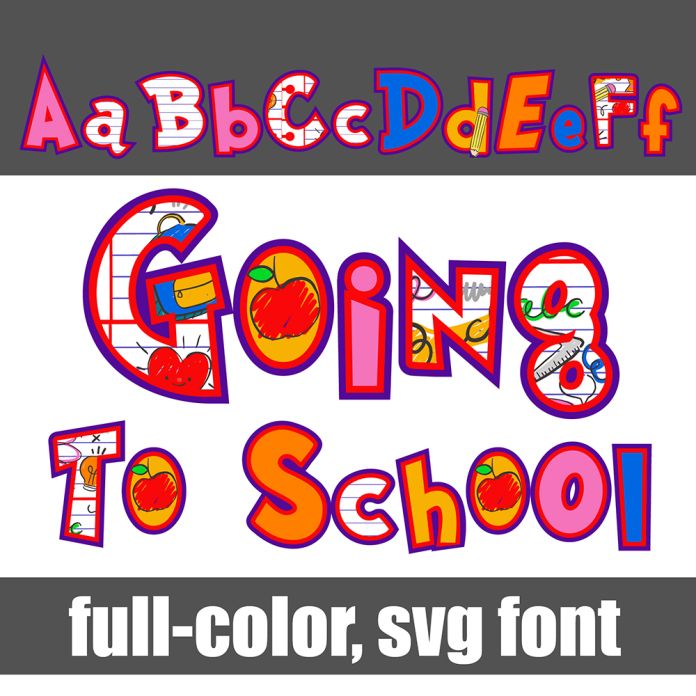
This full-color font features school supplies and more in a whimsical, friendly font style. There is an alt case with additional colors you can access through your system's character map. This font works best for titles, displays, posters and more. Please note color fonts will show as black in non compatible programs. This font type is compatible with Silhouette Studio.